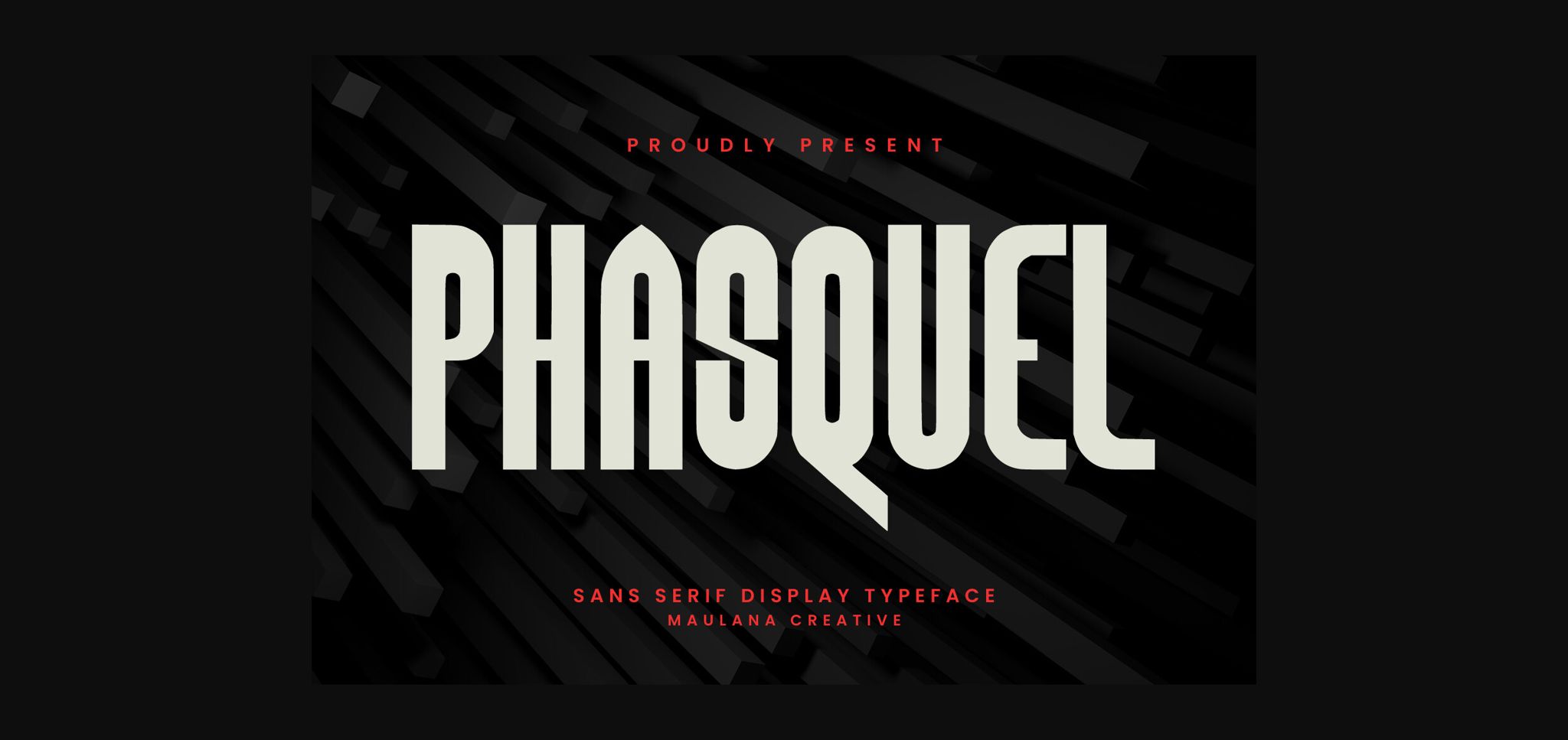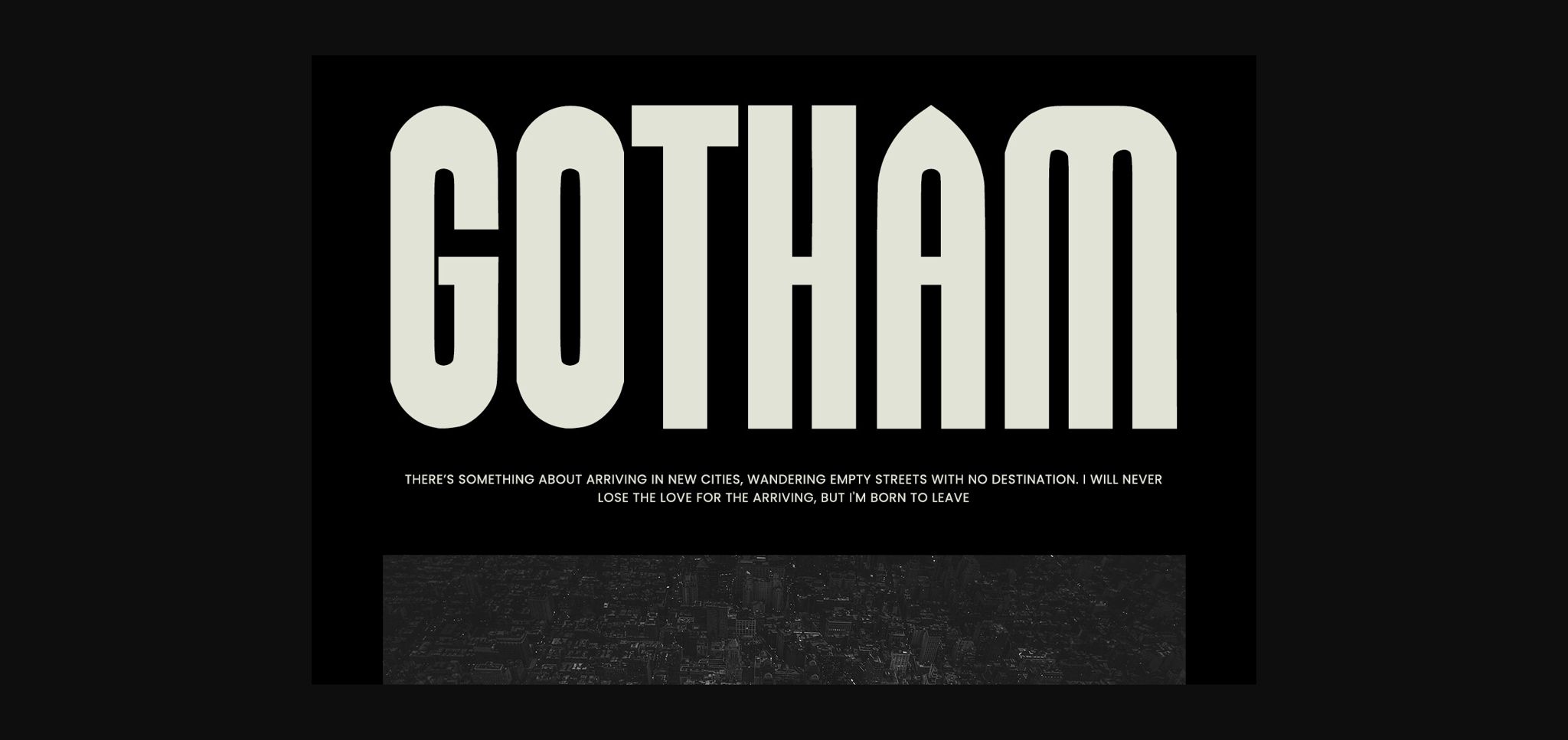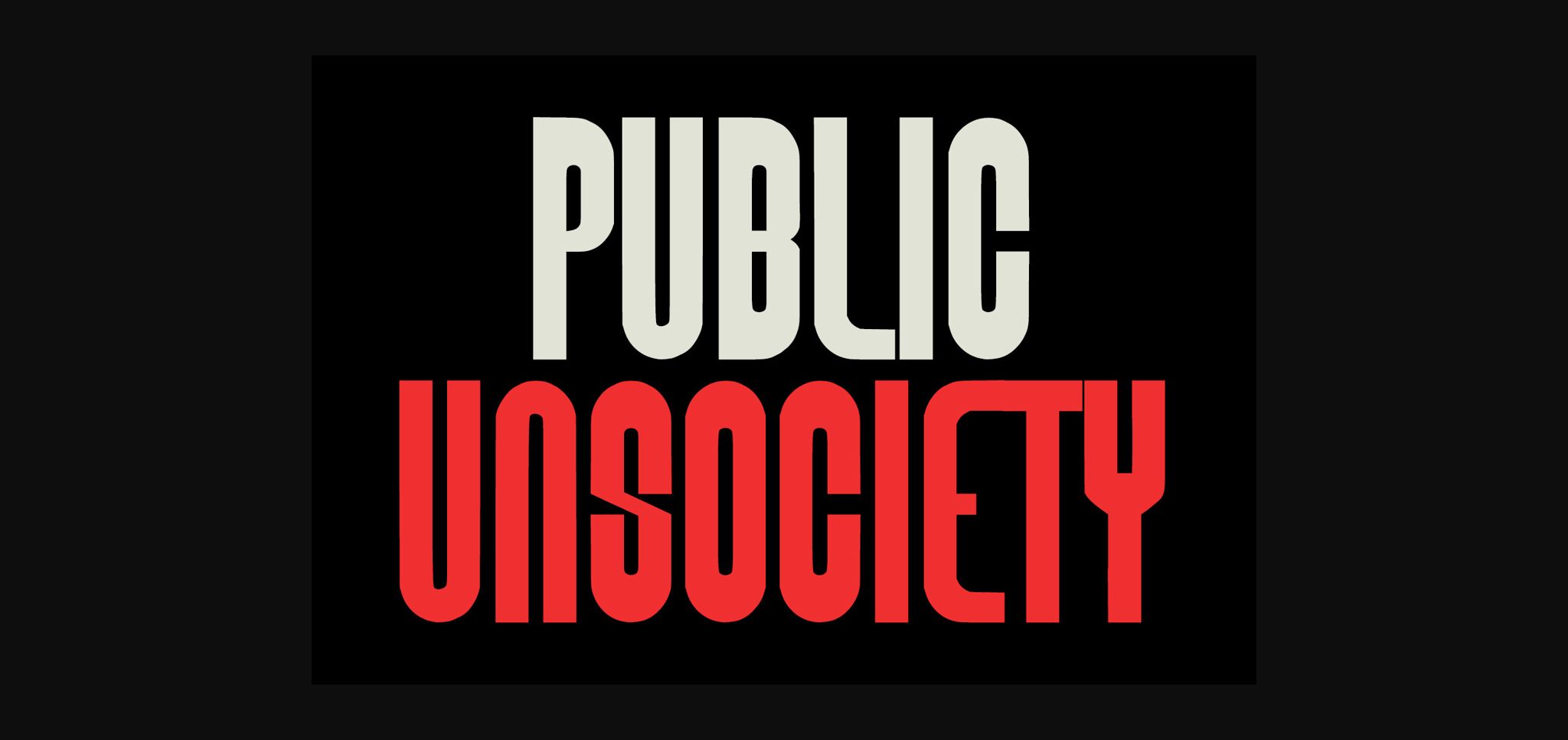
About Phasquel Font
Phasquel is a stylish and fashionable sans-serif font that embodies sophistication and elegance. With clean lines and subtle curves, it exudes a modern and minimalist vibe. Perfect for branding, editorial designs, and luxury products, Phasquel adds a touch of refinement and class to any project.